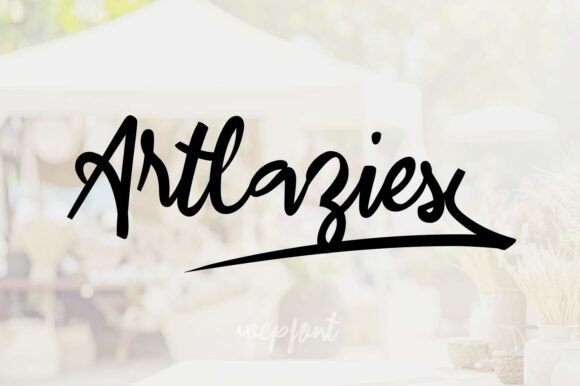
Discover the Charming Artlazies Font: A Perfect Blend of Artistry and Warmth
Have you ever been in the middle of a design project, only to find yourself stuck on the perfect font? I recall a recent experience where I was working on a branding project for a local artisan market, and I just couldn’t find a font that captured the essence of handmade, unique goods. That’s when I stumbled upon Artlazies, a charming script font that instantly resonated with the project’s vibe. In this article, we’ll dive into the world of Artlazies, exploring its features, uses, and what makes it a standout choice for designers, crafters, and creative hobbyists.
A Personal Review of Artlazies
- ✨ Fluid, connected letterforms that give off a natural, handwritten appeal
- ✅ Comprehensive set of uppercase and lowercase letters, numerals, and standard punctuation
- 💕 Inviting curves and legible design that evoke a sense of personalized artistry and warmth
- 🎨 Perfect for conveying sincerity and a unique, handcrafted feel
While Artlazies is an excellent font, there are a few minor considerations to keep in mind:
- ⚠️ Some users might find the font a bit too casual for very formal projects
- 🤔 Limited availability of extended language support
A Practical Guide to Using Artlazies
- Experiment with OpenType features, such as ligatures and stylistic alternates, to add a personal touch to your text
- Explore the font’s glyphs and OpenType features, such as swashes and ornaments, to add creative flair to your design
The Story Behind Artlazies
Artlazies was designed with the intention of capturing the essence of relaxed craftsmanship and creative expression. The designer’s inspiration came from the world of handmade goods and artisanal markets, where uniqueness and personality are highly valued. With Artlazies, the goal was to create a font that would evoke a sense of warmth, sincerity, and approachability.
| What type of projects is Artlazies best suited for? | Artlazies is perfect for projects that require a touch of personal flair, artisanal charm, and a creative spirit, such as branding, apparel, farmers’ markets, handmade goods, and boutique businesses. |
| Is Artlazies suitable for formal projects? | While Artlazies has a unique and creative appeal, it may not be the best choice for very formal projects. However, it can still work well in formal contexts when paired with a more traditional font. |
| Does Artlazies support OpenType features? | Yes, Artlazies supports OpenType features, including ligatures, stylistic alternates, and glyphs. This allows for greater creative flexibility and customization in your designs. |
In conclusion, Artlazies is a charming and authentic script font that beautifully captures the essence of relaxed craftsmanship and creative expression. With its fluid, connected letterforms and inviting curves, it’s perfect for designers, crafters, and creative hobbyists looking to add a personal touch to their projects. Whether used for branding, apparel, or handmade goods, Artlazies is sure to bring a unique and artistic flair to any design.